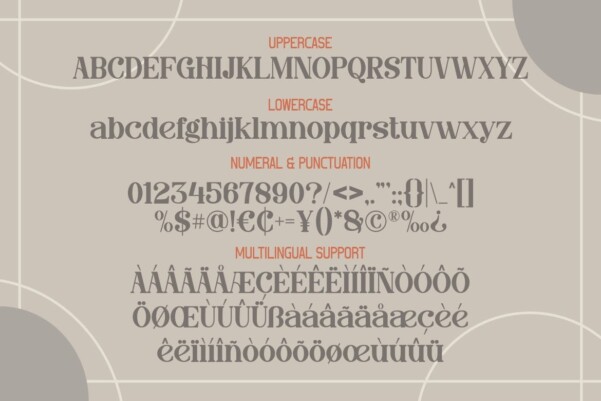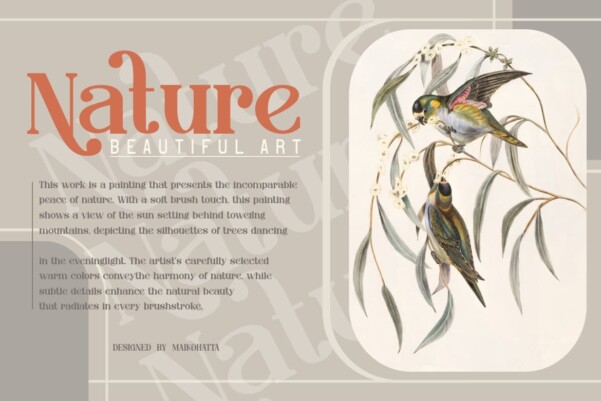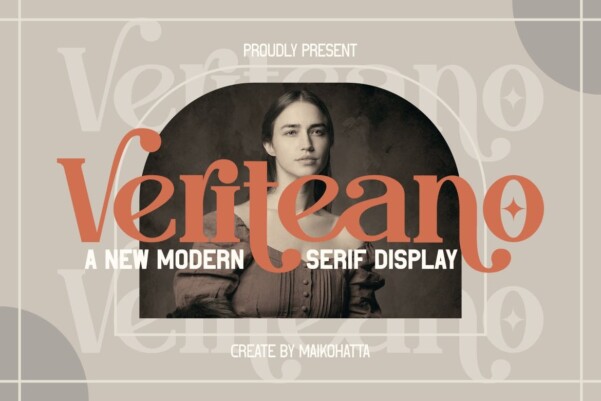
Veriteano Font
Veriteano Font – Modern Serif Display, This font is designed with meticulous detail, featuring clean lines and balanced proportions. Serifs provide an artistic touch without losing the essence of clarity, making them ideal for use on large sizes, such as titles, headers, or other prominent design elements.